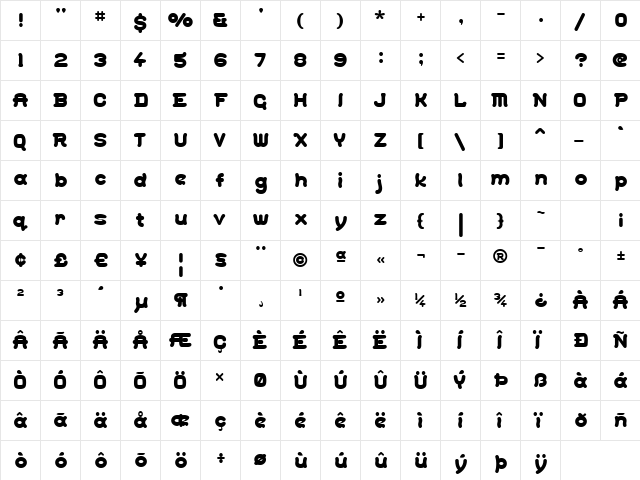
Gohan Regular
Design Context for Gohan Typeface
Gohan is a composed and adaptable typeface that performs quietly and consistently across a wide range of design contexts.
Pro Tip: Pair Gohan with a font of contrasting weight or personality to build a more expressive typographic hierarchy.